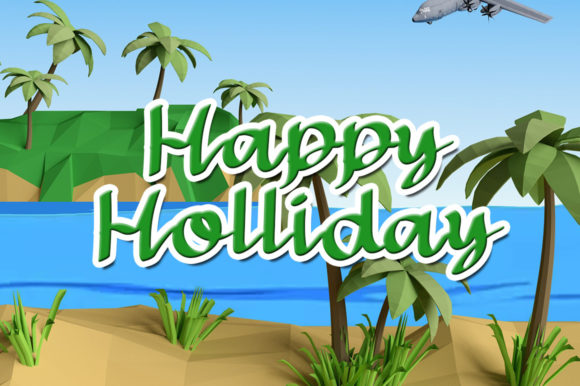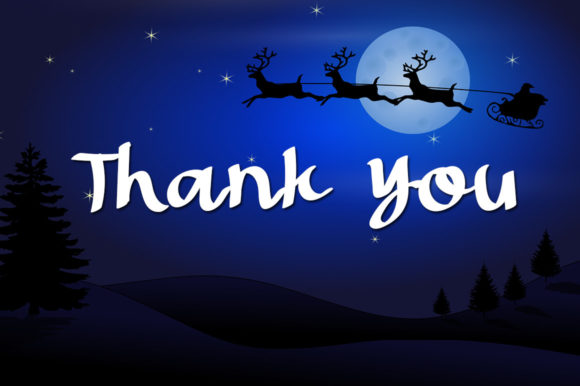
Mountain Fishing Font
Mountain Fishing Font is a free, unique, and cool font. This font is FREE to Download and suitable for designs such as t-shirts, sportswear, posters, logos, advertisements, clothing, and more.
Mountain Fishing Font is a free, unique, and cool font. This font is FREE to Download and suitable for designs such as t-shirts, sportswear, posters, logos, advertisements, clothing, and more. Whatever the topic, this font will be a great asset to your font collection, as it has the potential to enhance any creation.